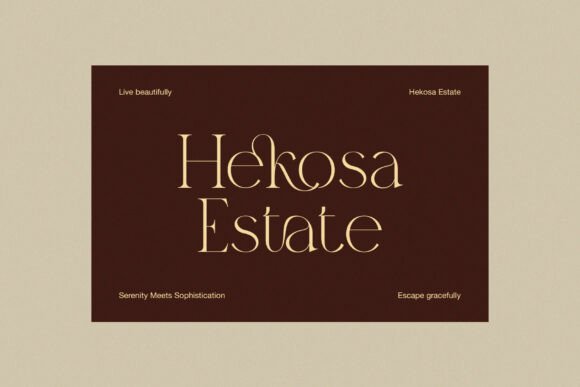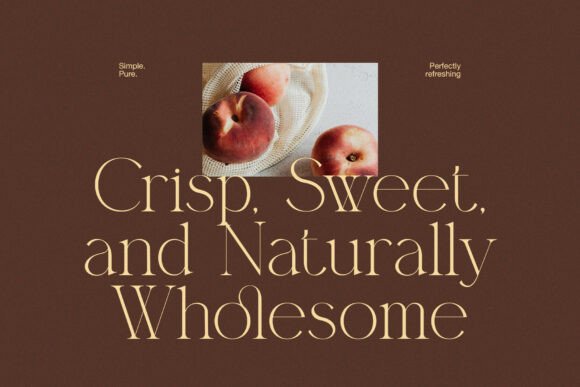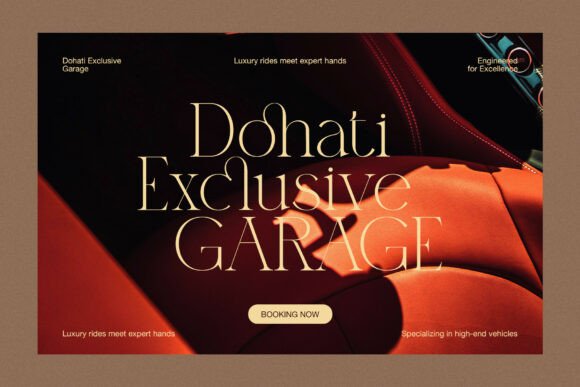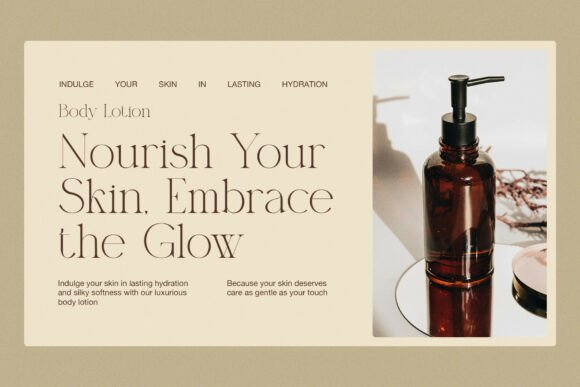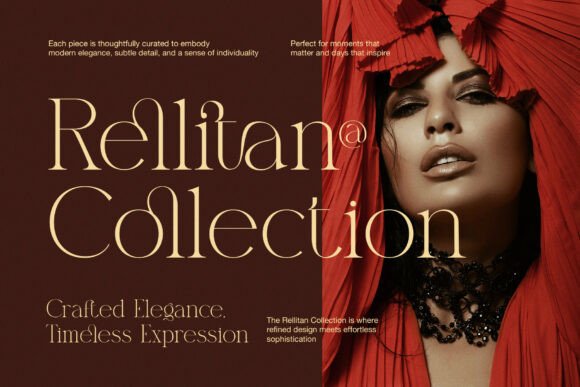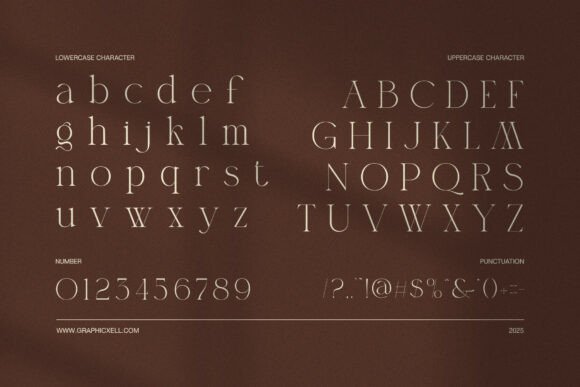
Introduction to Megita Font
Have you ever stared at a blank page, trying to come up with the perfect design for a creative project, only to feel overwhelmed by the endless options of fonts and styles? I know I have. As designers, we’re constantly seeking that one special element that can elevate our work from good to great. That’s where the Megita Font comes in – a modern and stylish serif typeface that brings a clean and classy feel to any project.
Whether you’re working on a high-quality design resource or a personal project, the Megita Font is a valuable addition to your toolkit. Its smooth curves, balanced shapes, and functional ligatures make it a smart choice for many design needs. Plus, it’s free to download, so you can experiment with it without breaking the bank.
With its versatility and high-quality design, the Megita Font is a must-have for any designer looking to add a touch of elegance to their work. And the best part? It’s perfect for use with transparent backgrounds, making it a great choice for digital designs.
Key Features of Megita Font
- Features a transparent background, allowing for seamless integration into any design.
- Designed to provide a unique and eye-catching aesthetic, making it perfect for branding and marketing materials.
- Includes a wide range of characters and glyphs, ensuring versatility and flexibility in its application.
Honest Review: Megita Font
I recently stumbled upon the Megita Font and was excited to give it a try for my next creative project. As a designer, I’m always on the lookout for high-quality design resources that can elevate my work.
Here’s what I think works well about the Megita Font:
- ✨ Unique and stylish design that can add a touch of elegance to any project
- ✨ Highly legible and versatile, making it suitable for various design applications
- ✨ Transparent background option, allowing for seamless integration with other design elements
- ⚠️ Limited font styles and weights, which may not be suitable for designers who require a wide range of options
Overall, I’m impressed with the Megita Font’s potential and would recommend it for personal or non-commercial projects. With a little creativity and resourcefulness, I’m confident that designers can make the most out of this high-quality design resource.
Common Use Cases for Megita Font
Megita Font is suitable for a variety of creative projects, including logo design, branding, and marketing materials. Its high-quality design and transparent background make it easy to use in a range of design contexts.